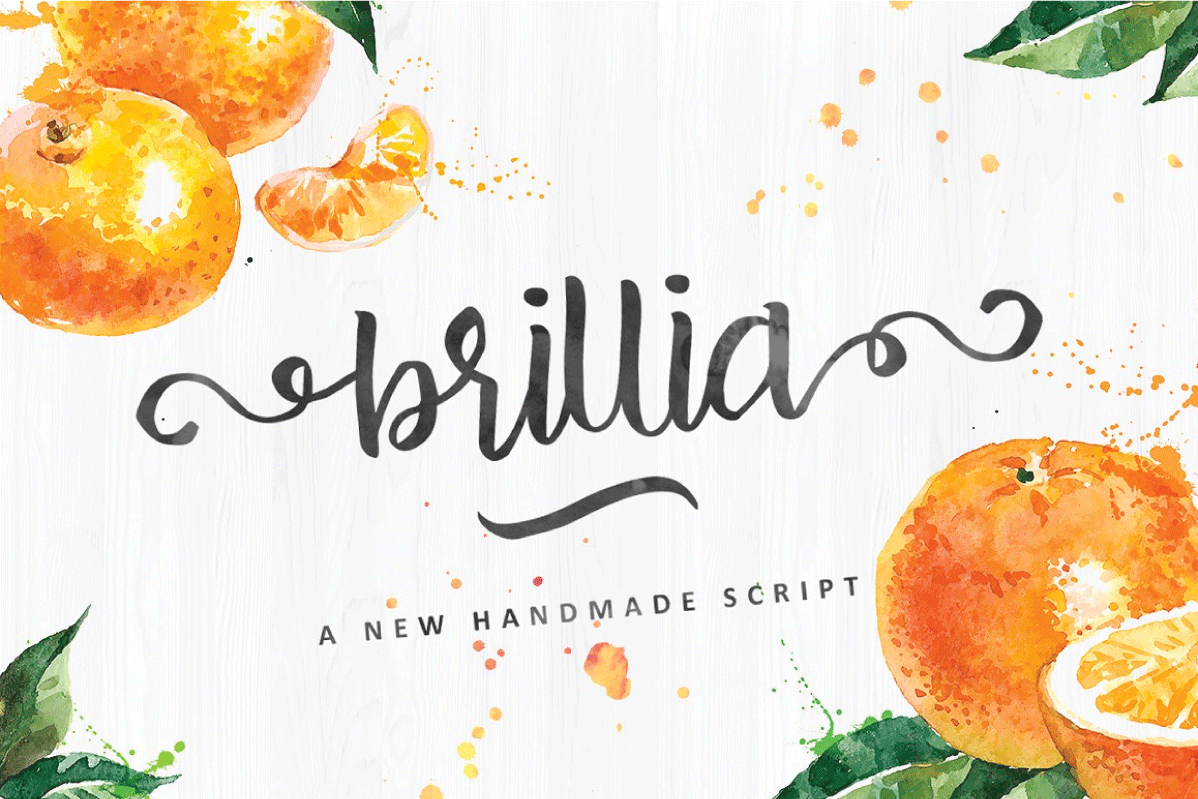
Brillia Script
brillia script
Brillia Script is a beautiful handmade script give the natural looks.
Alternate character contain with opentype features. Stylistic
alternates, Ligature and more. You can access all those alternate
Great for Apparel Brand, any greeting cards, book cover, Painting
design style, or any design that needs natural and personal touch. Mix
and match the alternate characters to add an attractive message to your
design.